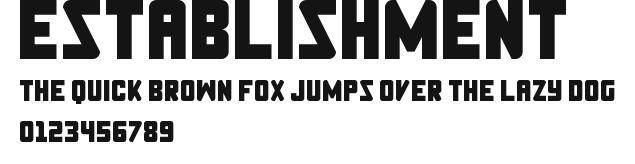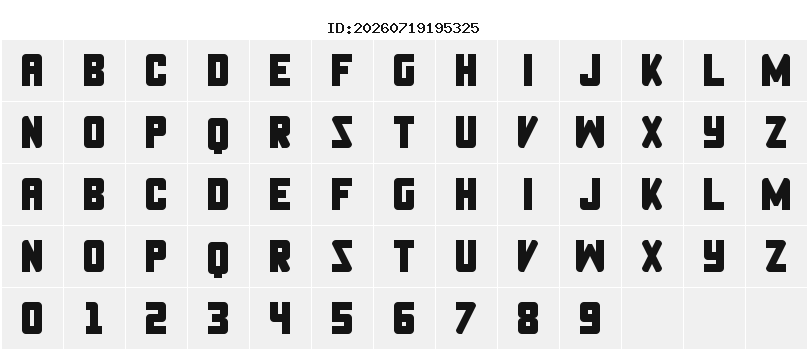
• Font Name: Establishment
• Designer: GeronimoFonts
• Description: ‚ÄúEstablishment‚Äù was built with FontStruct
About Establishment.ttf
Establishment.ttf is a modern, elegant sans-serif font designed for ultimate readability and visual harmony. Perfect for branding, headlines, web design, and print materials.